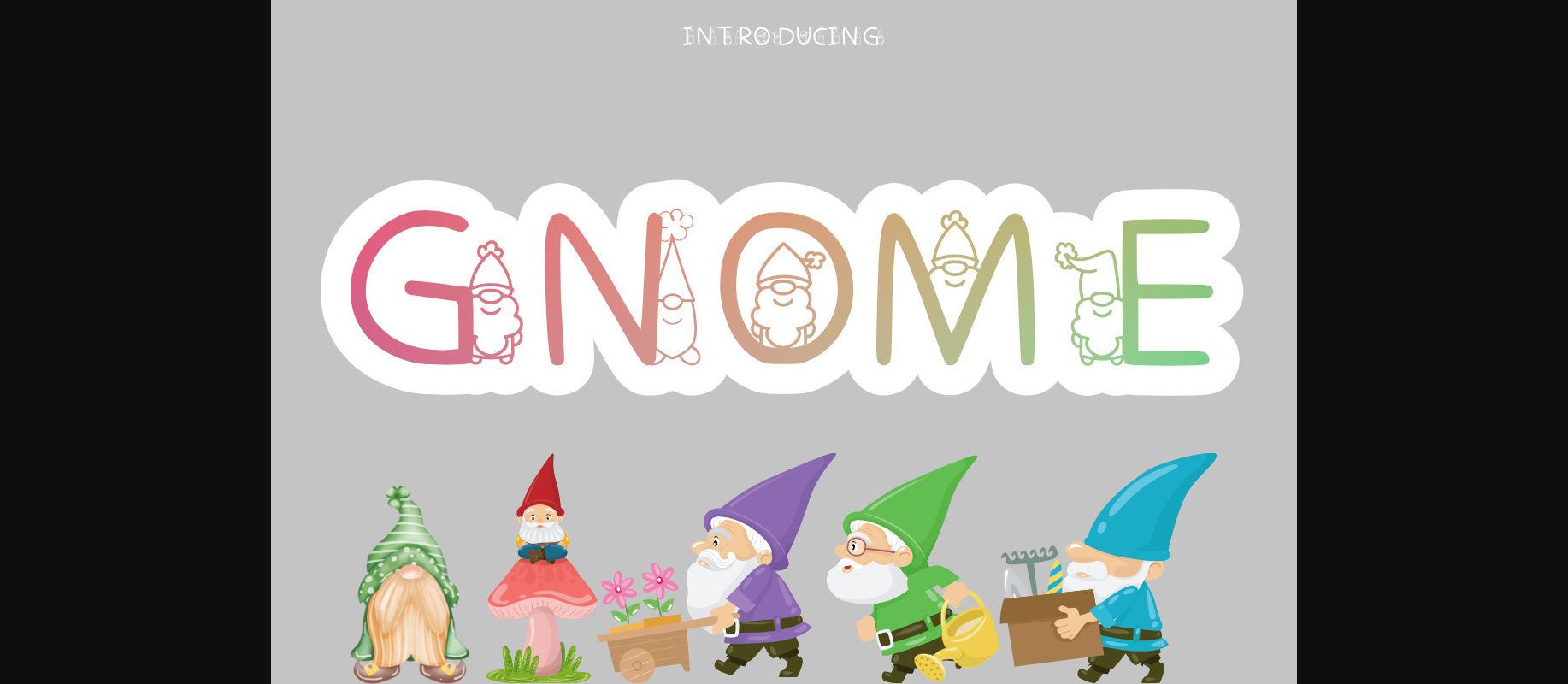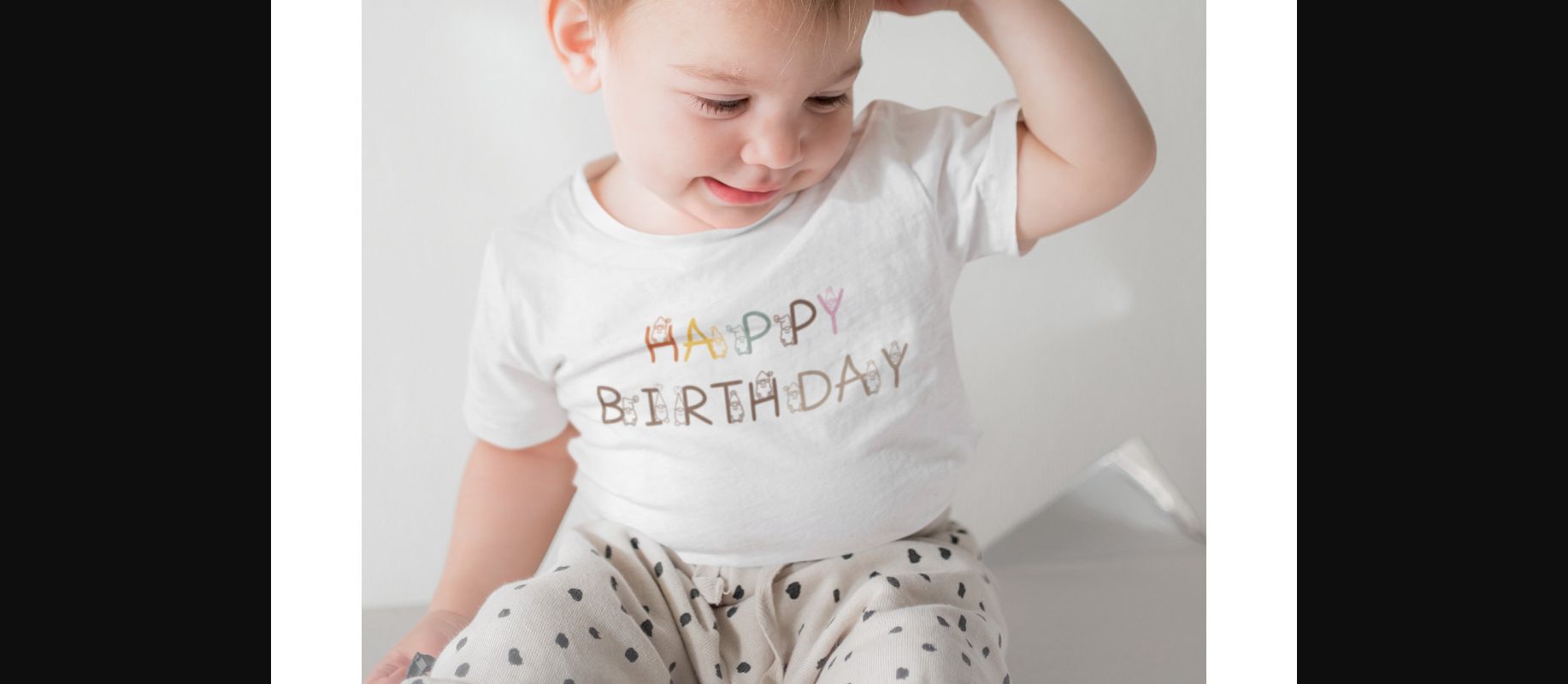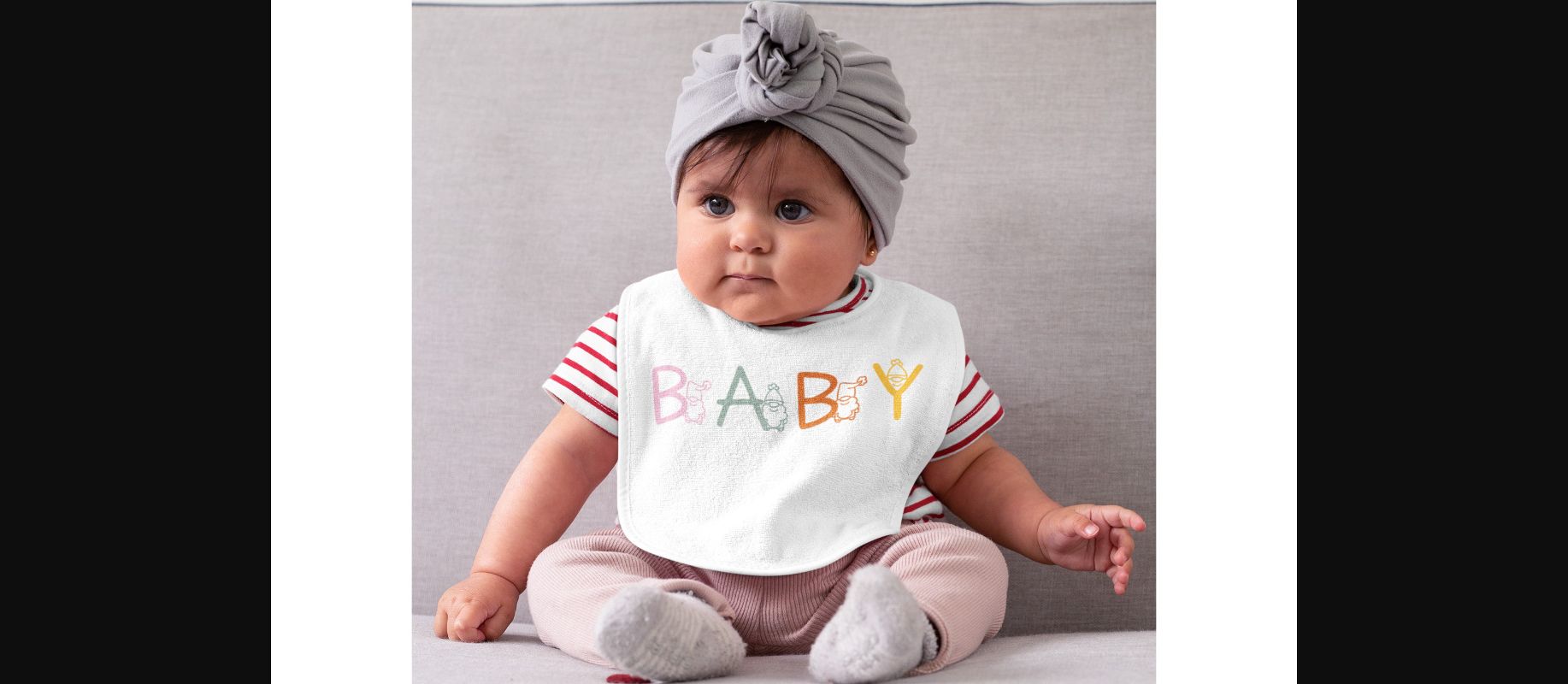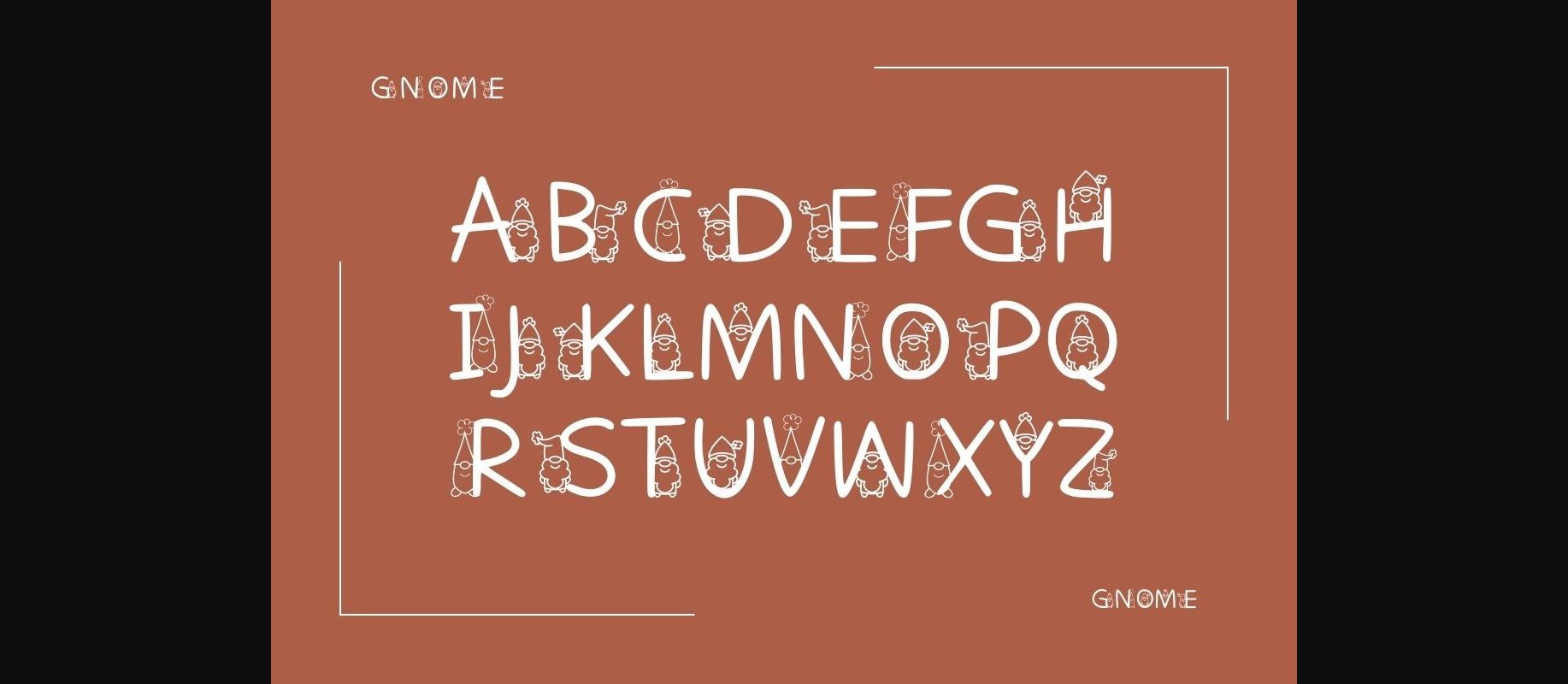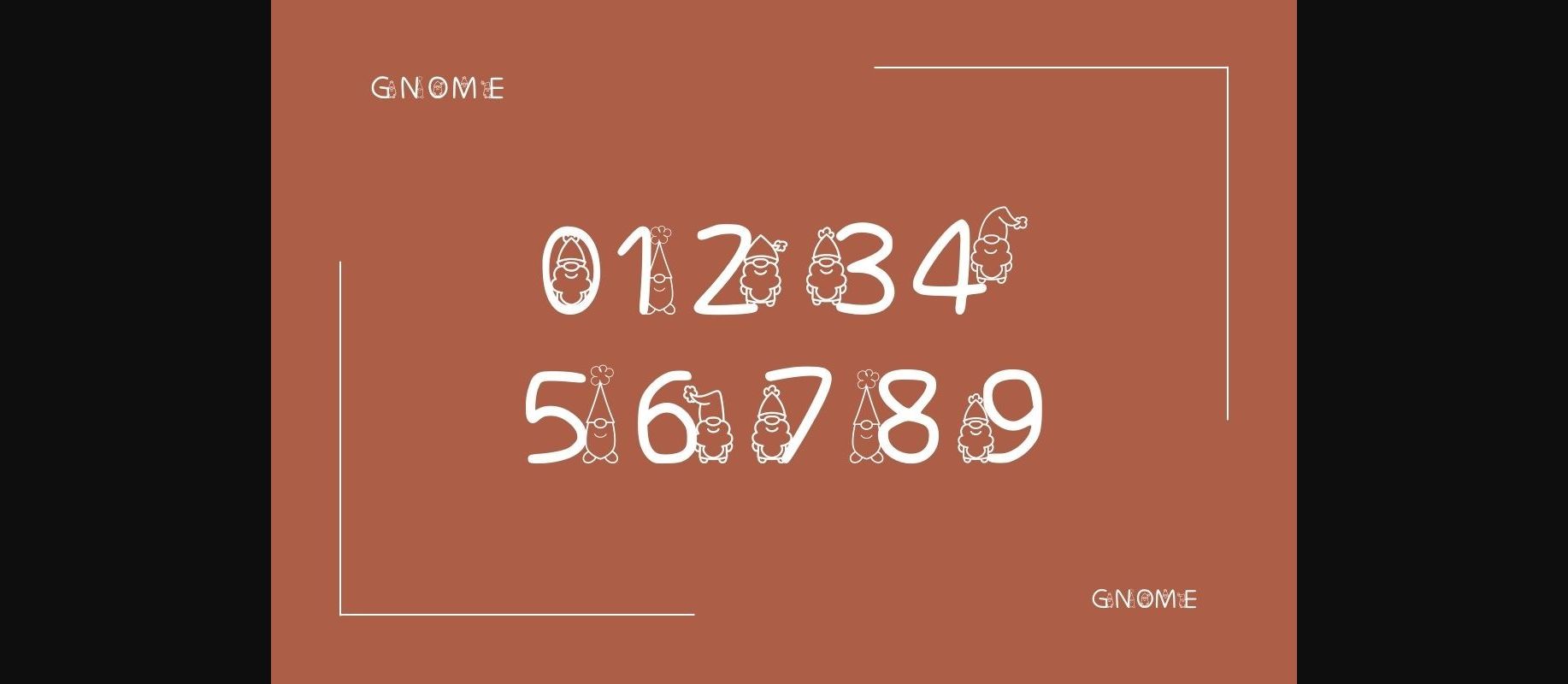
Gnome is a cute, childish and friendly decorative font. Each letter features a tiny gnome next to it. This font is perfect for children themed designs, especially when combined with bright colors.